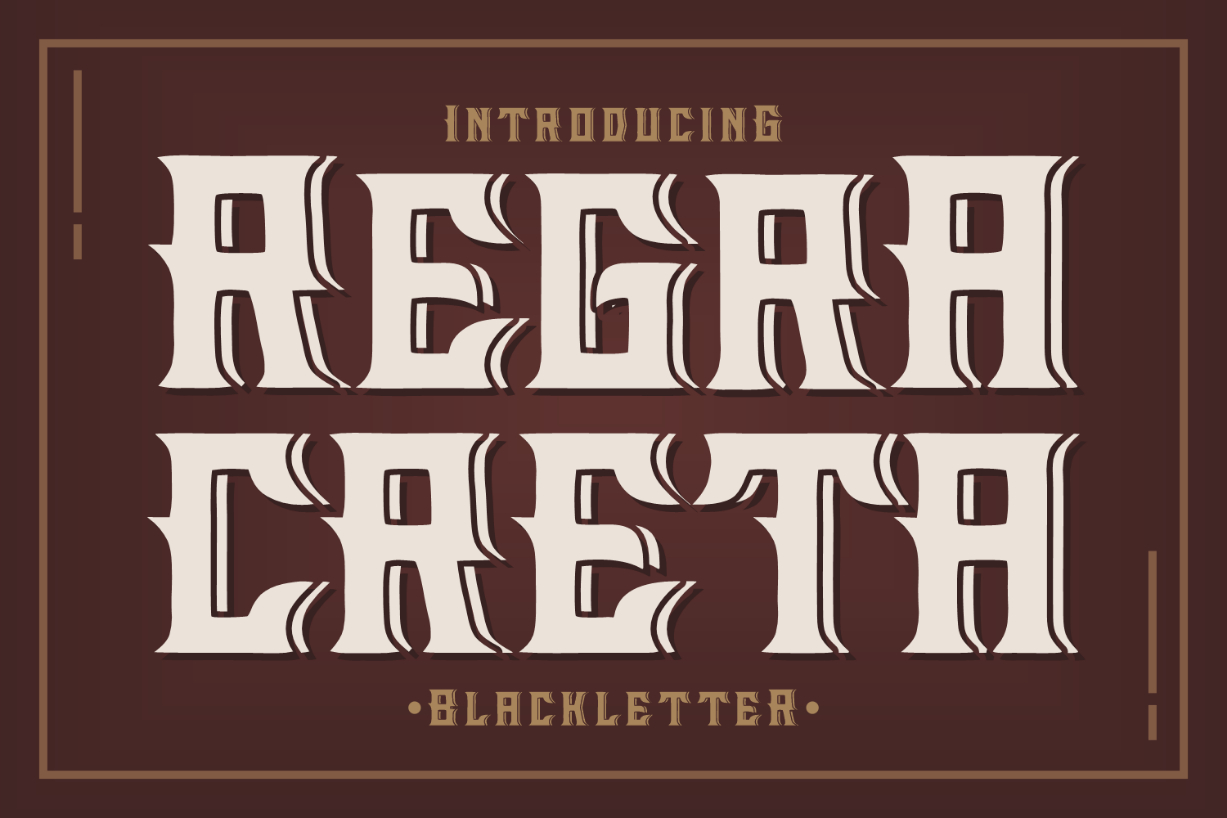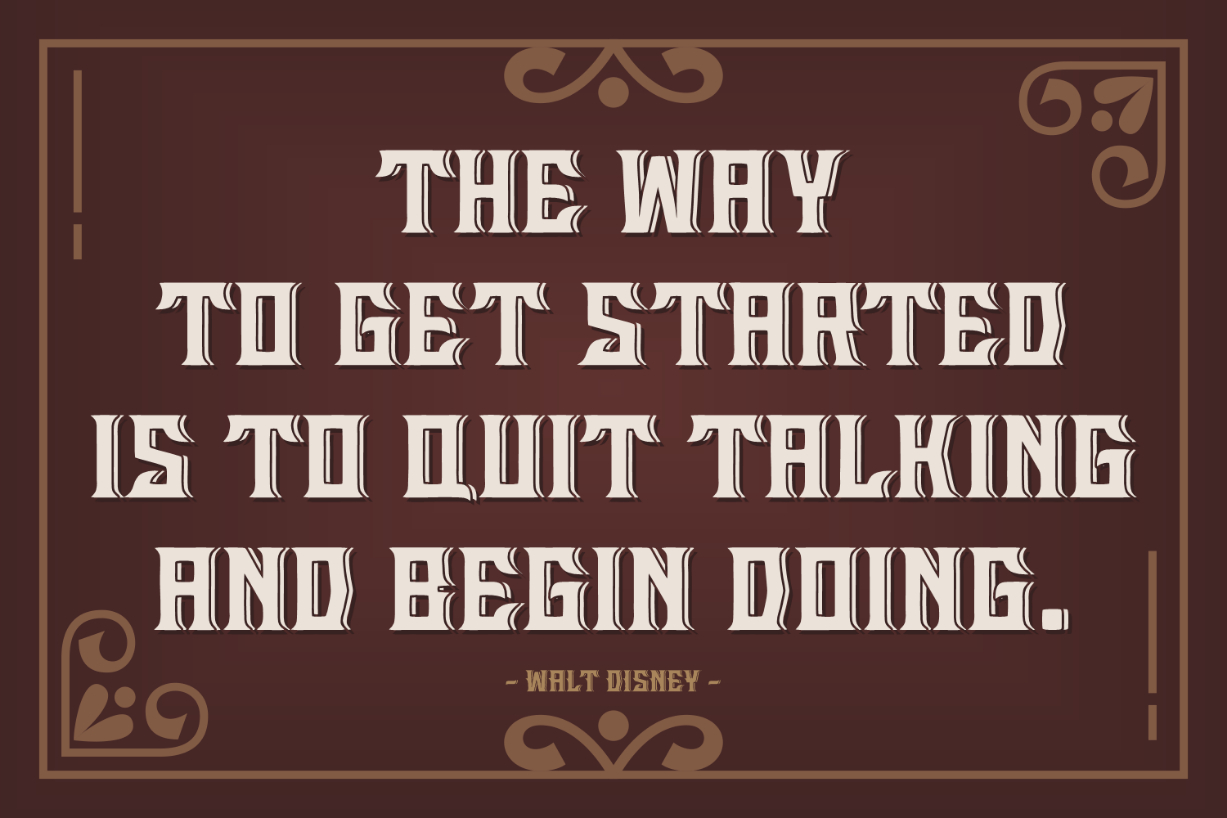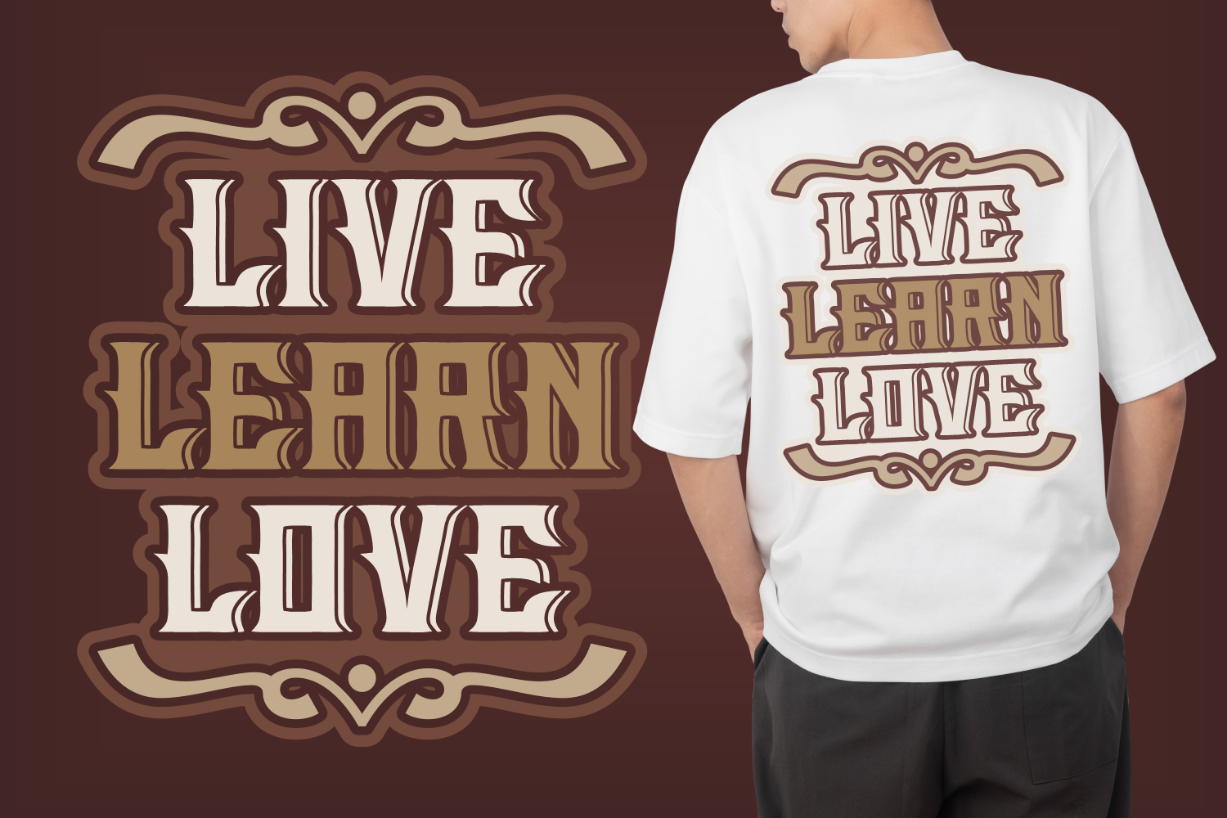
About Regra Creta Font
Regra Creta is a striking blackletter font with chunky characters. The pointy ending strokes combined with the inlines and the thickness of the glyphs give this font its distinctive 3D look. Add it to your library now, and use it to take your typography designs to the highest level!